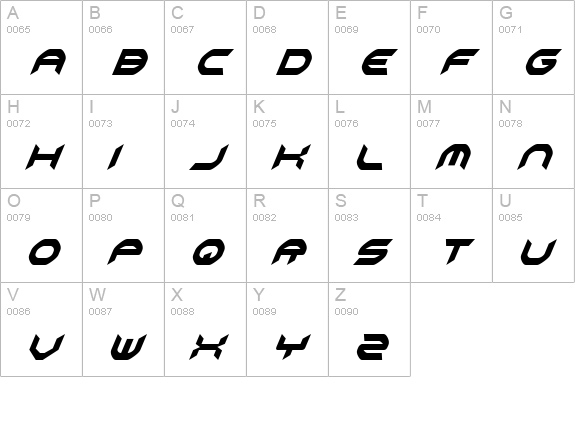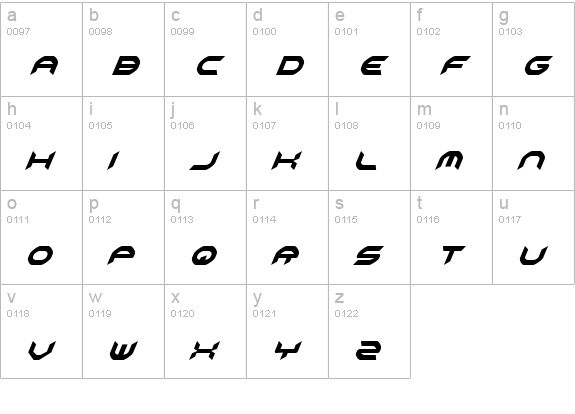
Omni Girl Condensed Italic is a distinctive, condensed-width, italic variant in the Omni typeface family \xE2\x80\x94 well suited to design and typography projects.
Omni Girl Condensed Italic is a sleek and modern font that exudes elegance and sophistication. Its slanted and condensed design adds a touch of flair to any project, making it perfect for headings, logos, and branding materials. The italicized style of the font gives it a dynamic and contemporary look, making it stand out from the crowd. What sets Omni Girl Condensed Italic apart is not only its striking appearance but also the fact that it is completely free to download. Yes, you read that right - this stylish font can be yours at no cost! Simply head over to FontsMarket.com and get your hands on this versatile typeface to elevate your designs to the next level. Whether you're working on a website, a poster, a business card, or any other creative project, Omni Girl Condensed Italic is sure to make a lasting impression. Download it today and unleash your creativity with this exceptional font!